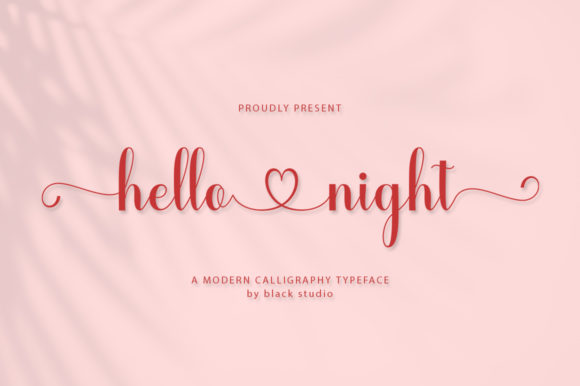
Unleash the Elegance: Hello Night - A Script Font Symphony for Visual Storytellers
In the realm of visual storytelling, typography reigns supreme. It has the power to evoke emotions, convey messages, and set the tone for your creative endeavors. Introducing Hello Night, a captivating script font crafted by Black Studio, designed to elevate your designs with grace and charm.
With its delicate strokes, flowing swashes, and authentic handwritten feel, Hello Night invites you to weave enchanting tales. Whether you're a graphic designer conjuring captivating magazine layouts, a content creator crafting visually stunning social media posts, or a passionate crafter seeking unique touches for your handmade cards and invitations, Hello Night is your muse.
Immerse yourself in the intricate details of Hello Night's letterforms. Witness the gentle curves of the lowercase letters, the playful flourishes adorning the uppercase, and the whimsical swashes that add a touch of magic to your words. This font is not merely a collection of characters; it's an ensemble of artistic expressions, ready to transform your creative visions into tangible masterpieces.
Say goodbye to mundane fonts that blend into the background. Hello Night demands attention, captivating your audience with its undeniable charm. Its graceful lines dance across the page, inviting readers to linger and savor the beauty of your words.
Elevate your digital presence with Hello Night, the perfect font for crafting captivating headlines, eye-catching logos, and visually stunning website designs. Let your brand shine with a unique identity that reflects your passion and creativity.
For the ardent crafters among us, Hello Night opens up a world of possibilities. Personalize your handmade creations with heartfelt messages, adorn your scrapbook pages with charming quotes, and add a touch of elegance to your DIY projects. Hello Night is your creative companion, transforming ordinary crafts into exquisite works of art.
Embrace the allure of Hello Night, a script font that weaves enchantment into your visual narratives. Its versatility knows no bounds, making it the perfect choice for a multitude of creative projects. As you explore the depths of Hello Night's charm, you'll discover a font that not only enhances your designs but also captivates hearts.